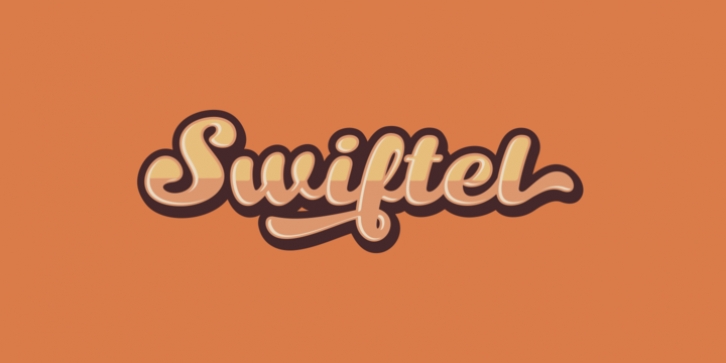
Swiftel downloadDesigner: Cucu Supriyadi
Publisher: Seventh Imperium
Swiftel is a Layered Script font. Brings an unusual Modern feeling. You can play the Base layer as a Regular then you can add depth font by using Shine, fill and outline layers and shadow solo. Of course the fonts is Equipped with opentype features.